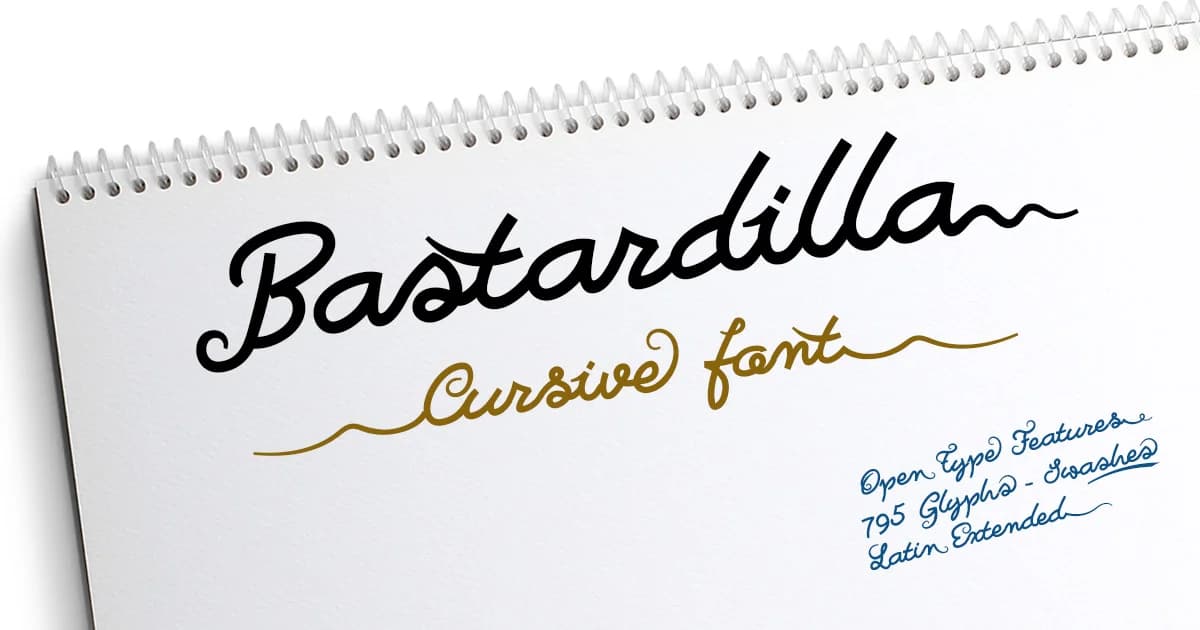
Bastardilla Font by Fernando Haro is a flowing script typeface that authentically captures the warmth of genuine handwritten letterforms. The design embraces natural pen strokes and organic character variations, bringing personality and sophistication to any creative project seeking an authentic, handcrafted aesthetic rather than digital coldness.
This handwritten script excels in applications where genuine character and visual warmth become part of your brand story. Consider it for wedding invitation suites where flowing elegance creates an unforgettable first impression, boutique product labels that communicate distinctive brand personality through authentic letterforms, greeting card designs where hand-lettered charm feels genuinely personal rather than computer-generated, or event signage where organic letterforms establish memorable visual identity in physical spaces. The typeface performs beautifully across both traditional print applications and contemporary digital layouts, adapting seamlessly from luxury packaging designs to social media content where script typography adds refinement.
Bastardilla's natural letterform variations and flowing character spacing make it a solid foundation for custom branding projects and creative entrepreneurs developing distinctive visual identities. Whether building a complete brand system or integrating authentic script elements into individual design work, this typeface delivers genuine handwritten warmth while maintaining excellent readability and professional presence across applications. Explore Bastardilla Font on Creative Fabrica to add authentic script character to your design portfolio.
Bastardilla Font is a script font that shines as a display or heading face. Pair it with a clean sans-serif or serif font for body text β the contrast creates a clear hierarchy while the two styles stay balanced and easy to read.